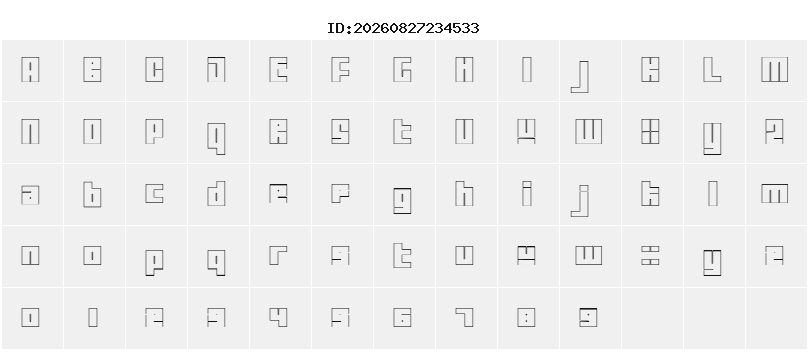
• Font Name: Tutor Outline
• Designer: Francesco Canovaro
• Manufacturer: studio Kmzero
About Tutor Outline.ttf
Tutor Outline.ttf is a modern, elegant sans-serif font designed for ultimate readability and visual harmony. Perfect for branding, headlines, web design, and print materials.